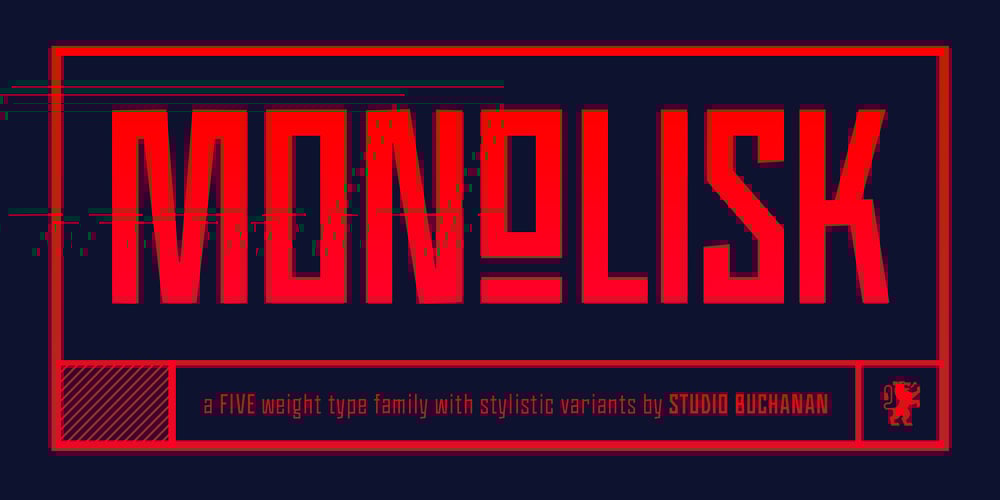
Monolisk
Monolisk font
Monolisk Font Family was designed by Jonathan Gibson and published by Studio Buchanan. Monolisk contains 10 styles and family package options. Monolisk is a rigid, gothic typeface that draws on inspiration from Eastmodern and Brutalist architecture. It’s monolithic glyphs, resolute and unapologetic in their construction, create a visually striking design that feels bold and arresting. Monolisk delivers a dominant sense of uniformity, to the point of obstinance, while small facets of it’s make up help to create an undertone of rebellion and dissent, allowing for an element of quirk and personality. Available in 5 weights, each with a corresponding oblique, Monolisk comes equipped with over 700 characters across a variety of languages. A large set of stylistic alternate glyphs give Monolisk further diversity of character all of which retain it’s sturdy and powerful nature. Other open type features include a set of vertically stacked fractions, small caps and ligatures. From sports branding to propaganda posters, Monolisk delivers the impact your designs require.